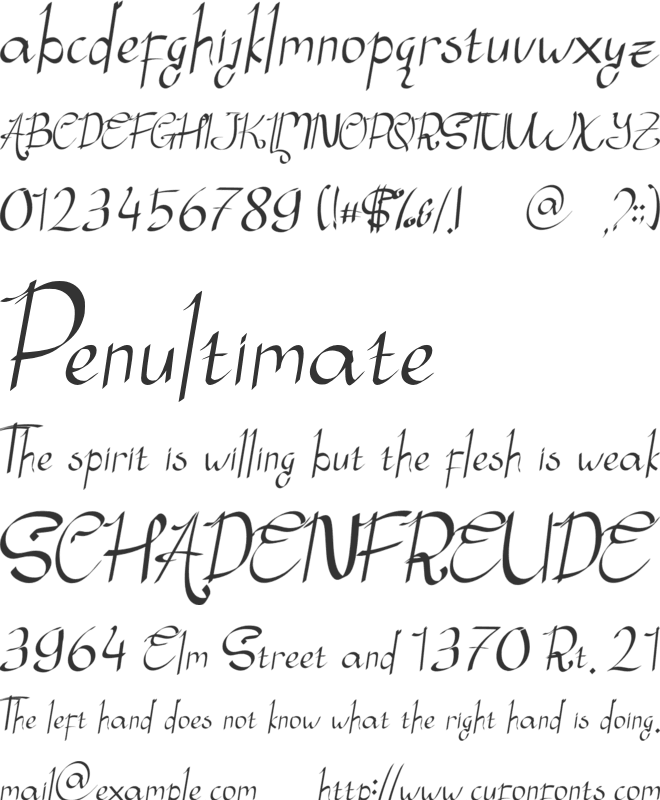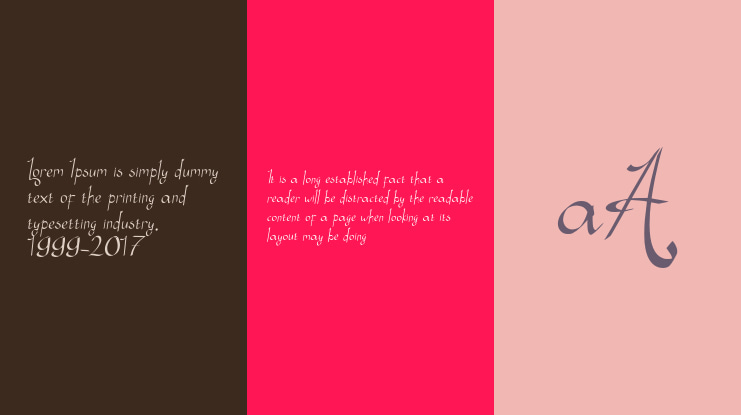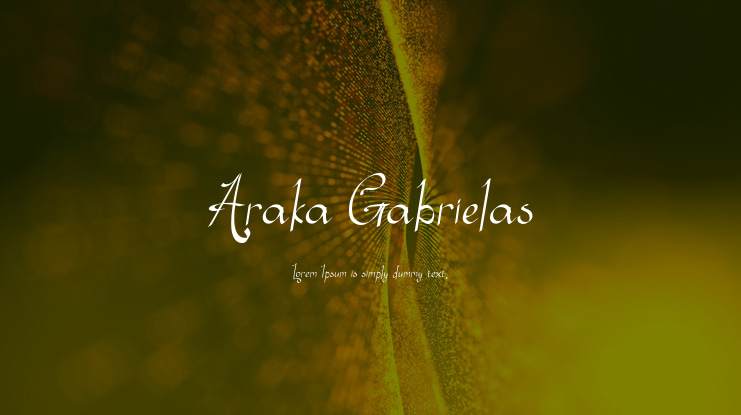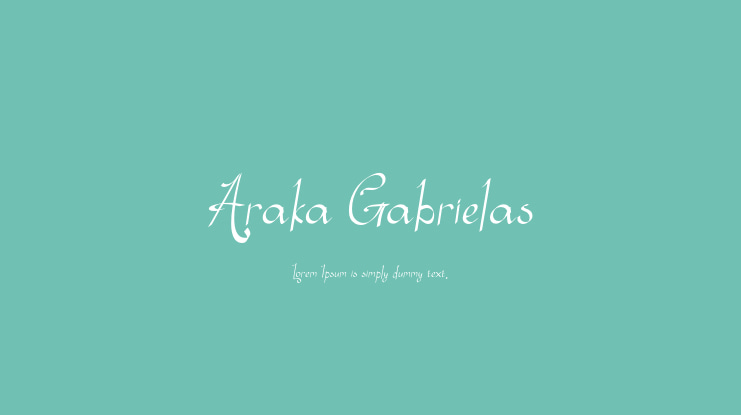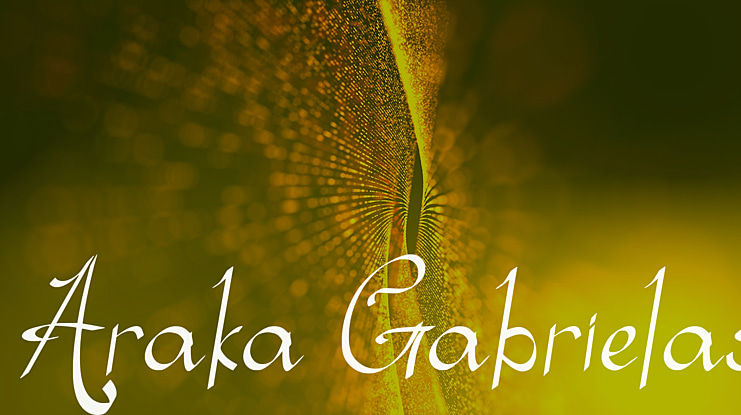
Araka Gabrielas Font
Araka Gabrielas Font is perfect for branding project, apparel, labels, magazines, books, greeting / wedding cards, packaging, fashion, make up, stationery, and any type of advertising purpose or just used to express words above the background.– Note of the author –Araka Gabrielas font is for personal use only and No Commercial use Allowed! If you want to use this font for Commercial use, you need to purchase a Commercial license here https://javanicestudio.com/araka-gabrielas/Any donation are very appreciated. Paypal account for donation: https://paypal.me/javanicestudioIf you need an extended license or corporate license, please contact us at Follow our instagram : @javanicestudioTHANK YOU!